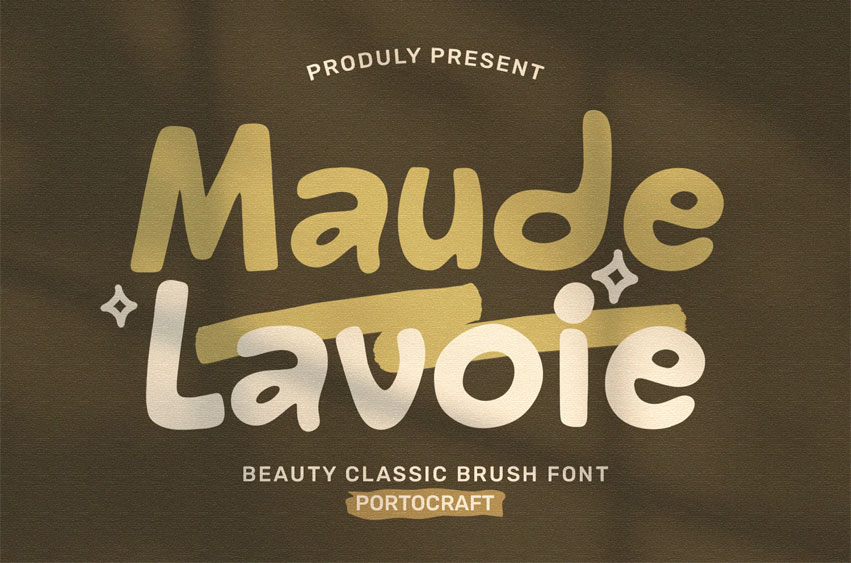
Maude Lavoie Font
Maude Lavoie Font is a beauty classic brush font that combines elegance with a natural hand-painted feel. Featuring smooth brush strokes, rounded letterforms, and a soft organic texture, this font delivers a warm, artistic, and expressive personality.
Designed to feel both classic and modern, Maude Lavoie is perfect for branding, packaging, quotes, posters, lifestyle designs, and creative projects that need a handcrafted touch. Its flowing brush style creates a sense of movement while remaining clean and readable.
Whether used for digital or print designs, Maude Lavoie adds charm, authenticity, and timeless beauty to your typography.
• Branding & logo design
• Beauty & lifestyle products
• Packaging & labels
• Quotes & greeting cards
• Posters & social media graphics
• Handmade & creative projects
• Classic brush lettering style
• Smooth and natural strokes
• Elegant yet casual appearance
• Artistic and expressive character
Bring handcrafted beauty and elegance to your designs with Maude Lavoie.